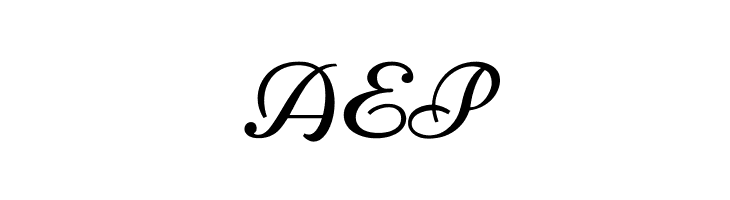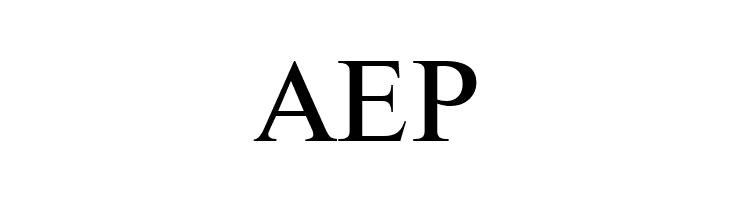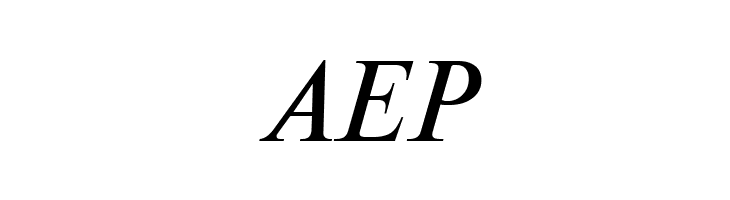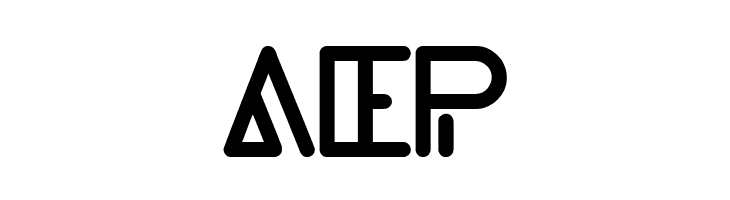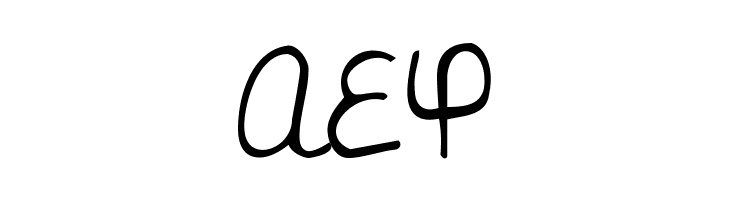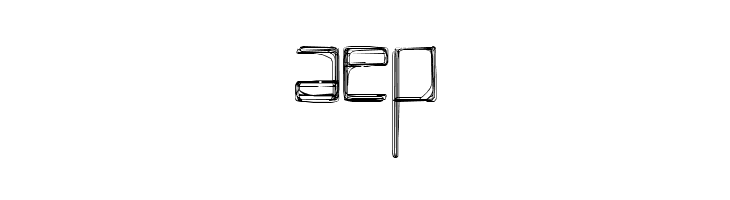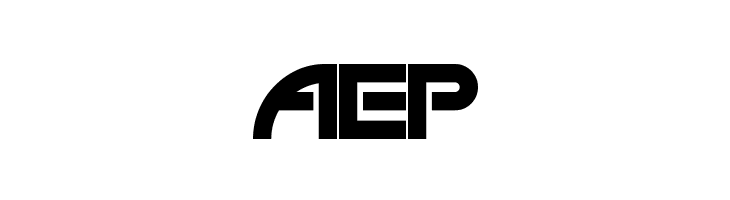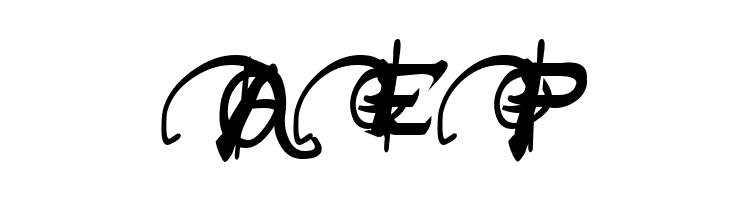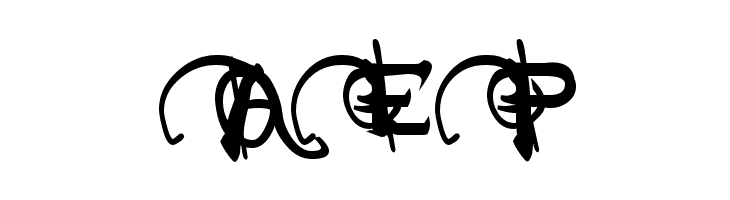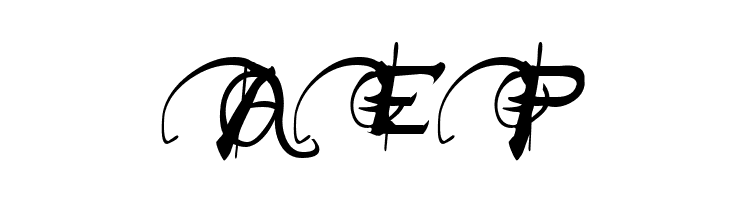
A bold, classic serif typeface with strong lines and a slightly condensed appearance.
A bold serif font with strong, thick strokes and prominent serifs.
A refined serif typeface with thin strokes and a modern elegance.
A light, elegant serif font with moderate contrast and rounded serifs.
A modern serif font with elegant, readable characters and balanced proportions.
A modern, geometric font with maze-like structures and bold lines.
A geometric, maze-like font with bold, interconnected lines and a modern artistic style.
A bold, gothic-inspired font with sharp, angular strokes and intricate detailing.
A bold, dramatic font with a medieval or fantasy theme.
A bold, italicized font with sharp, angular strokes and dynamic curves.
A dynamic, italicized font with a calligraphic flair and expressive strokes.
A bold, geometric font with a futuristic and modern aesthetic.
A bold, geometric font with a futuristic and modern design.
A modern geometric font with rounded edges and consistent stroke width.
A bold, gothic-inspired font with sharp, angular lines and dramatic flair.
A bold, modern sans-serif font with clean lines and geometric shapes.
A clean, modern sans-serif font with excellent legibility.
A modern serif typeface with elegant, refined letterforms and versatile applications.
A playful, hand-drawn font with dynamic curves and a whimsical style.
An elegant script font with flowing curves and classic calligraphic elements.
An elegant script font with flowing, cursive letterforms and a classic style.
An elegant script font with flowing, cursive strokes and a sophisticated style.
A modern, outlined font with a three-dimensional effect.
A bold, grungy font with a distressed, graffiti-like appearance.